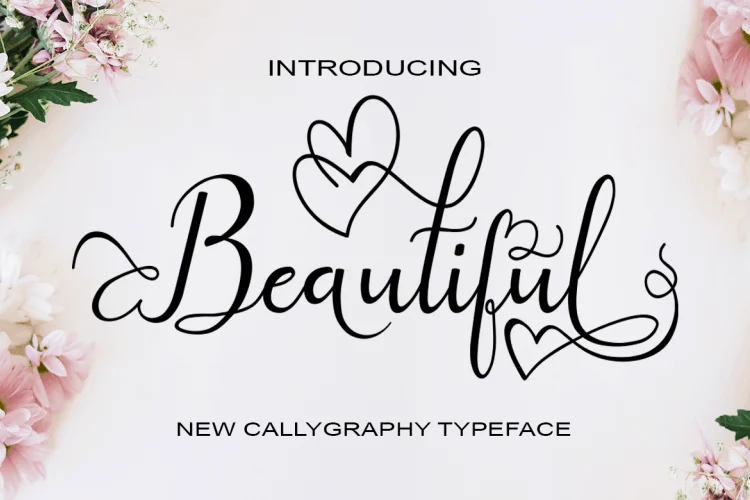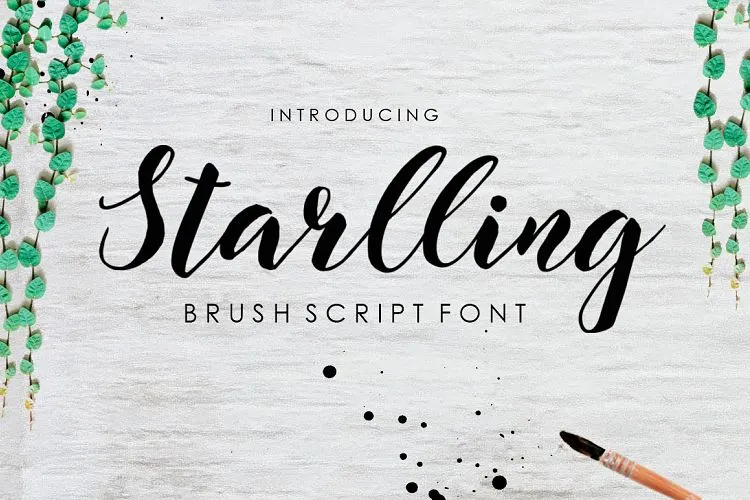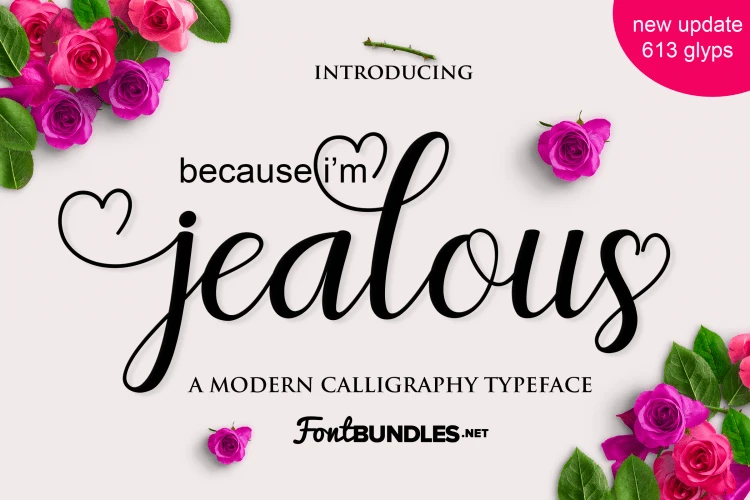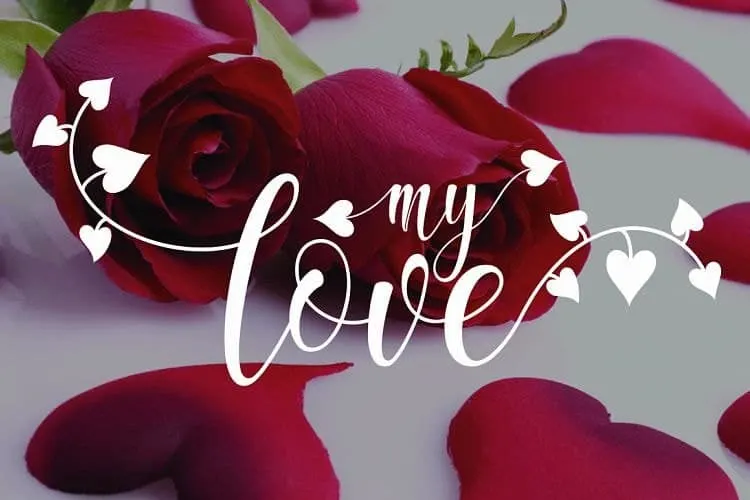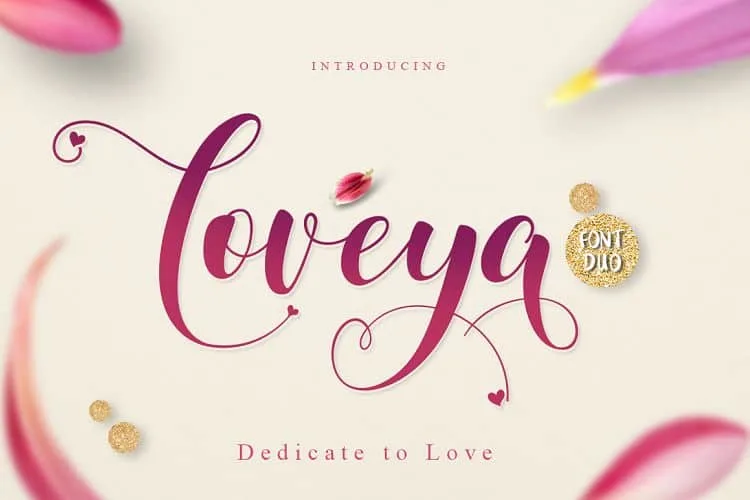
Valentine fonts
We’re coming up on Valentine’s Day which you know is the most popular time of year to declare your love.
So when it comes to Valentine’s Day, it’s time to think outside the box and a DIY gift is always a good idea.
For this installment of Paper Flo Design Favorites, I included a collection of fonts from Design Bundles that are perfect to complete your DIY craft gift!
Valentine Fonts for DIY gifts
Whether you’re making a custom designer t-shirt with vinyl, htv or iron on transfers, a personalized bathrobe and slippers or a set of matching wine glasses, I’ve got an inspiring list of creative fonts that will make your Valentine’s Day gift ideas pop!
Here is my collection of Valentine worthy fonts.
Valentine Font for DIY craft projects
Beautiful Script Font
Loveya font
brush script font
Mentose font
Aren't they just giving all the Valentine feels!? What about you? What are you making for Valentine's Day gifts?
What are Valentine fonts?
Valentine fonts are a collection of typefaces specifically designed to convey romantic and affectionate themes, commonly used for Valentine's Day or other love-related projects.
Where can I find Valentine fonts?
You can find Valentine fonts on various font websites, graphic design platforms, and even on some free font repositories. Look for dedicated font resources or search for "Valentine fonts" on reputable font websites.
Are Valentine fonts only for Valentine's Day?
While Valentine fonts are commonly associated with Valentine's Day, they can be used for various projects beyond the holiday. These fonts are suitable for creating romantic-themed designs, wedding invitations, love letters, and other affectionate content.